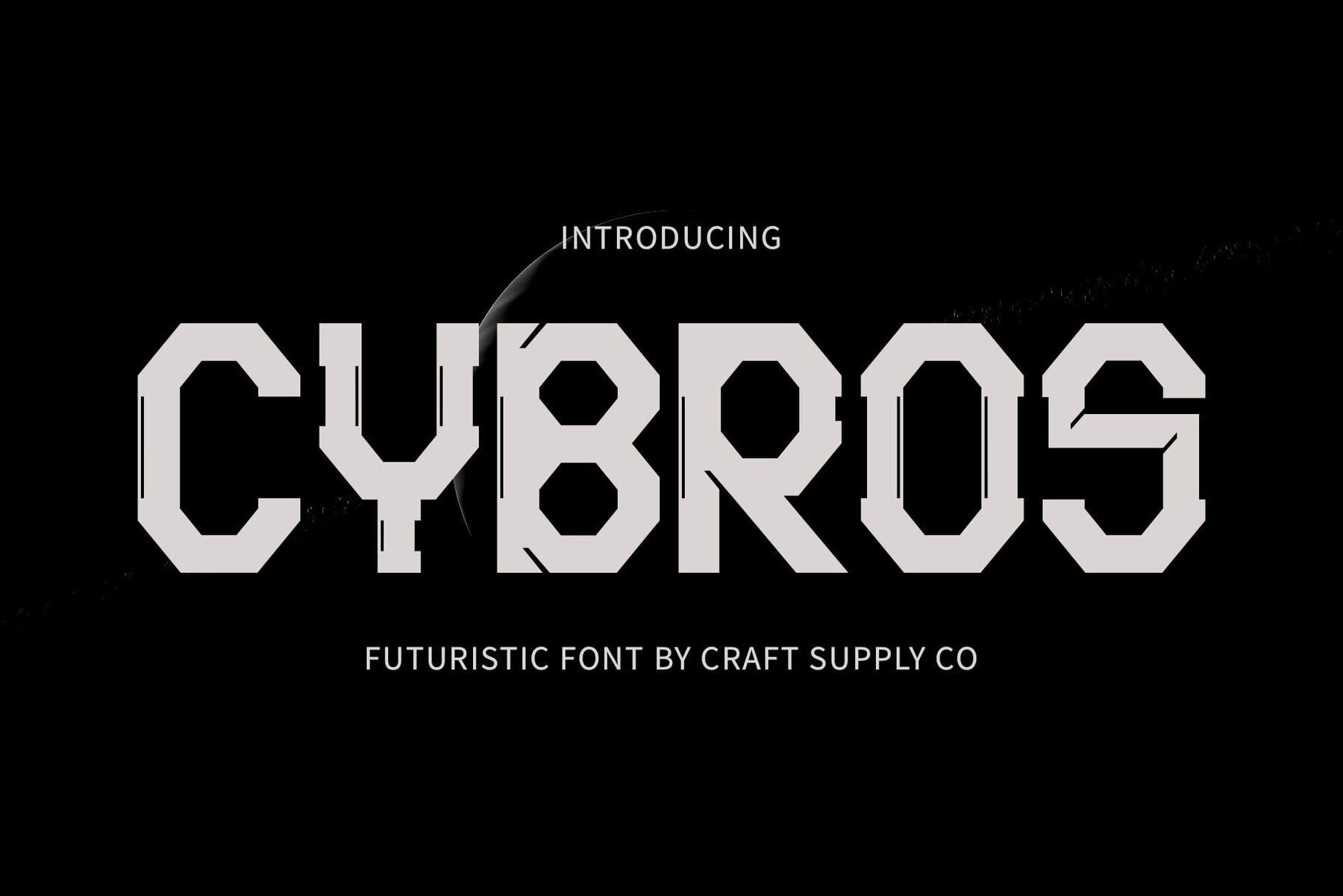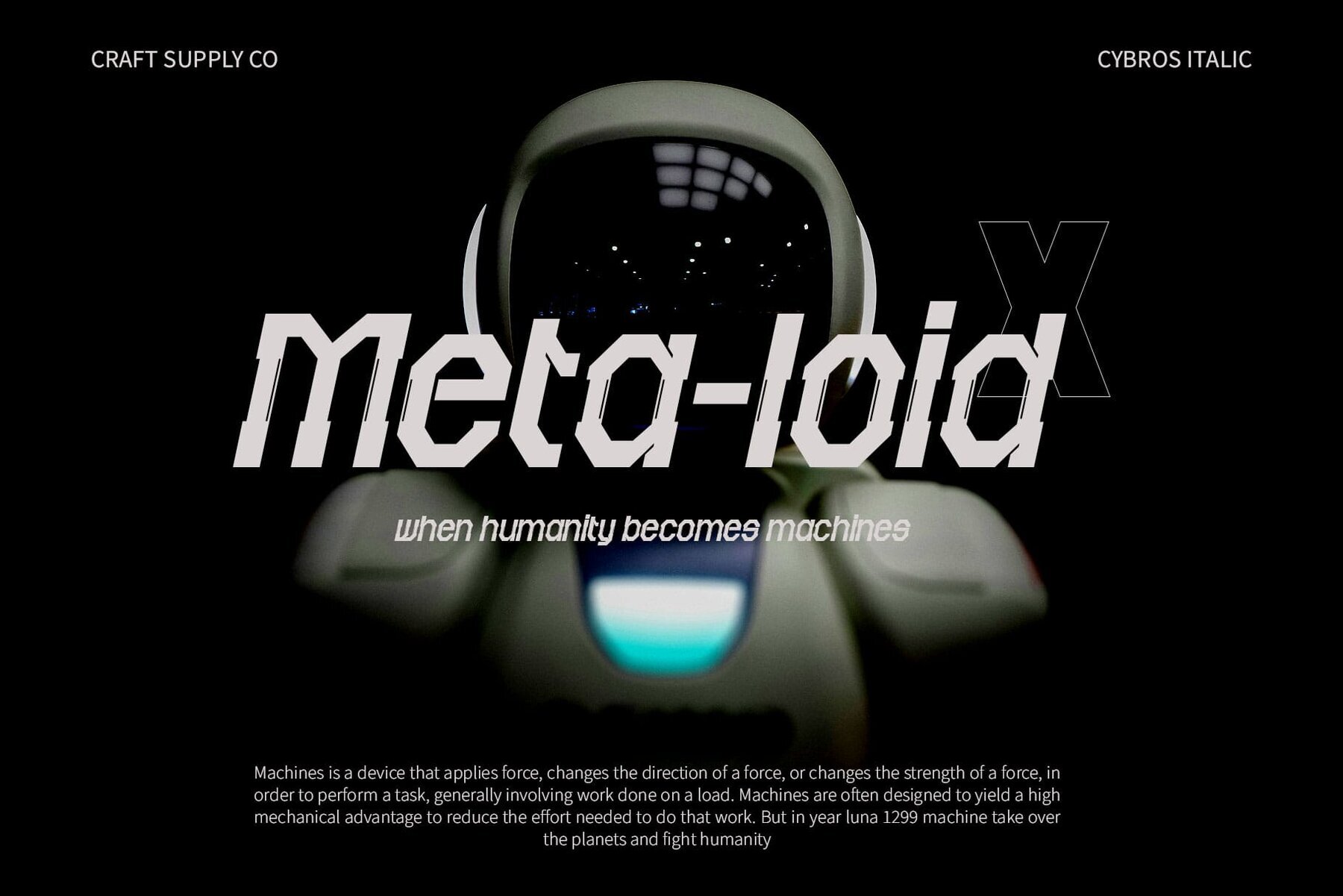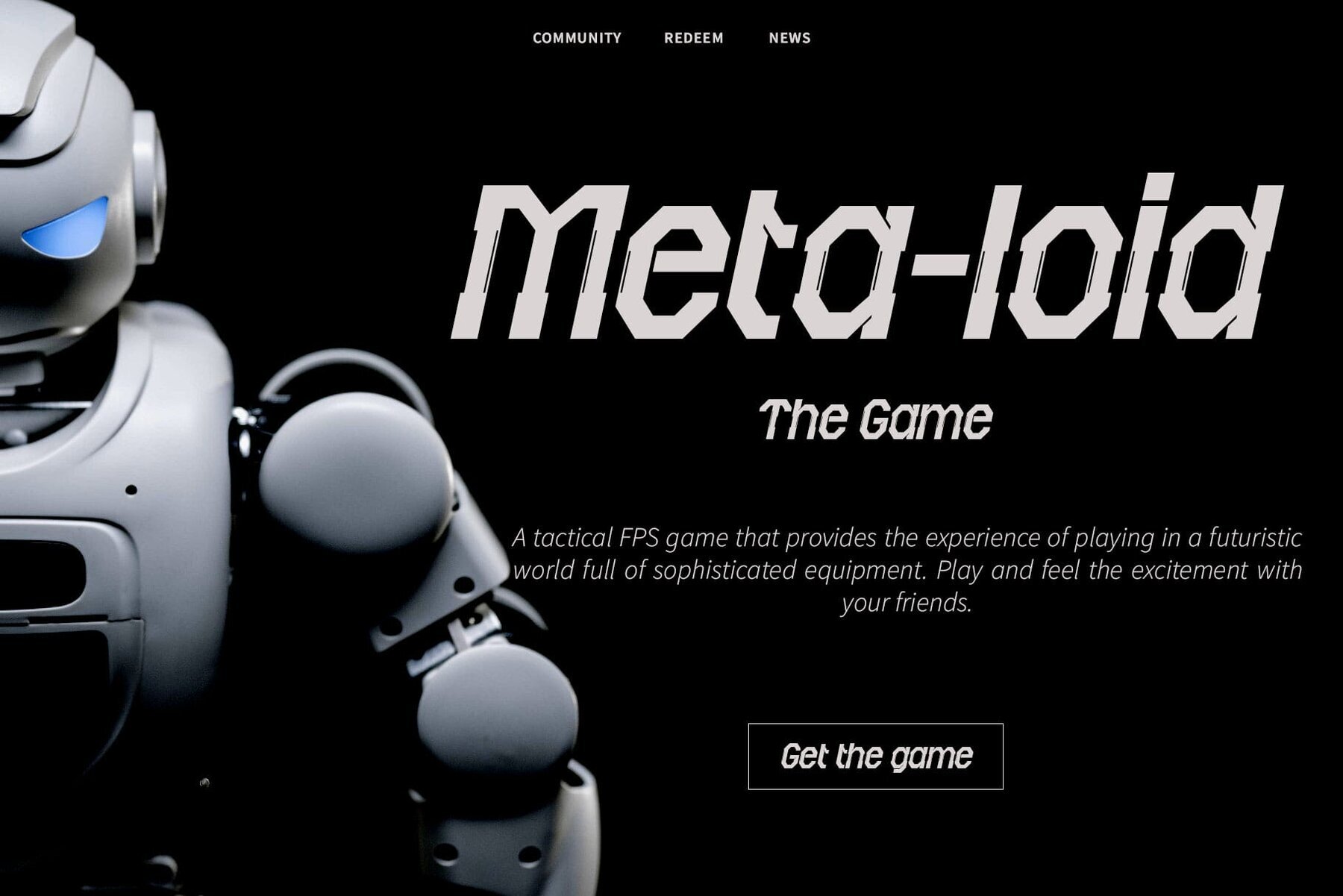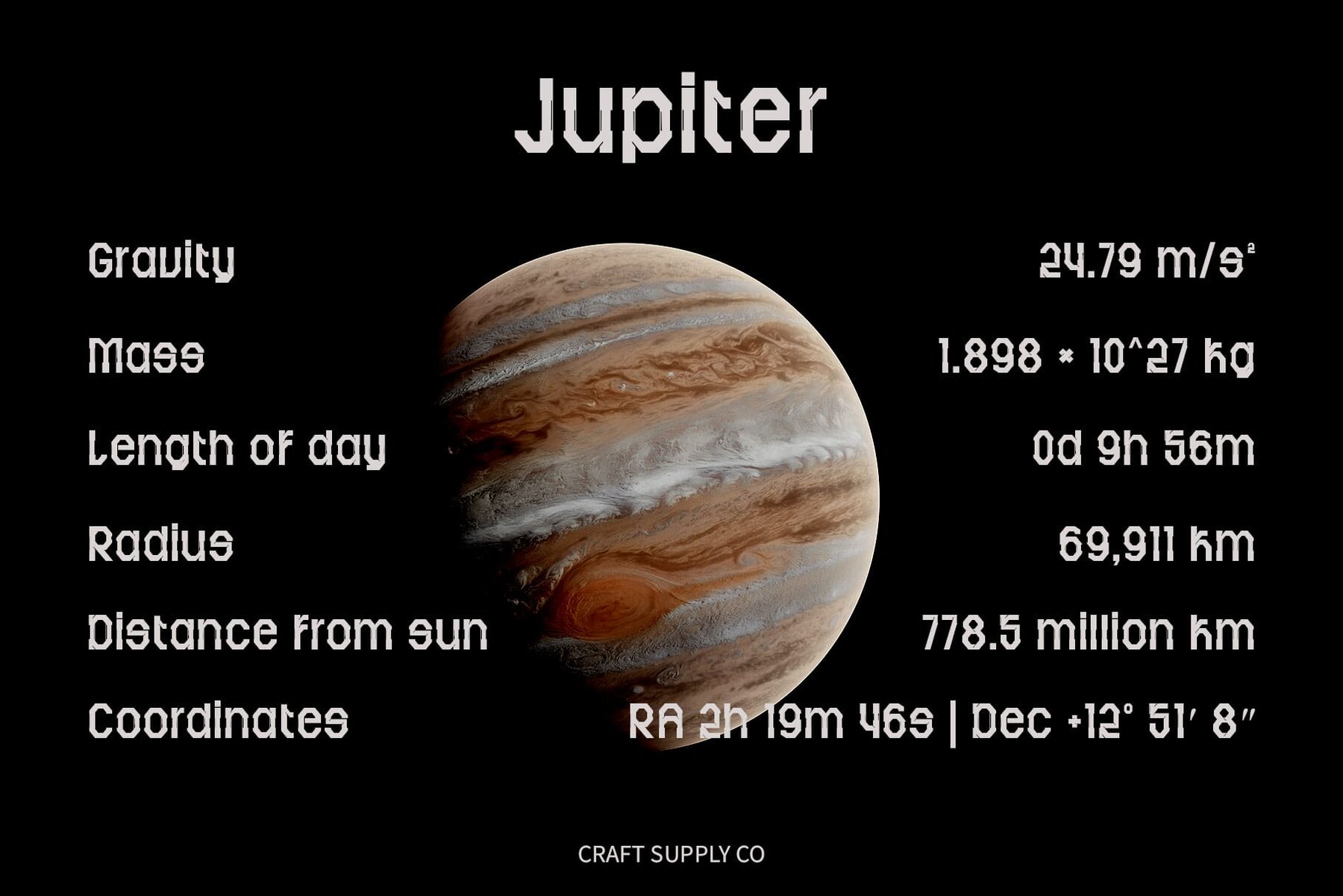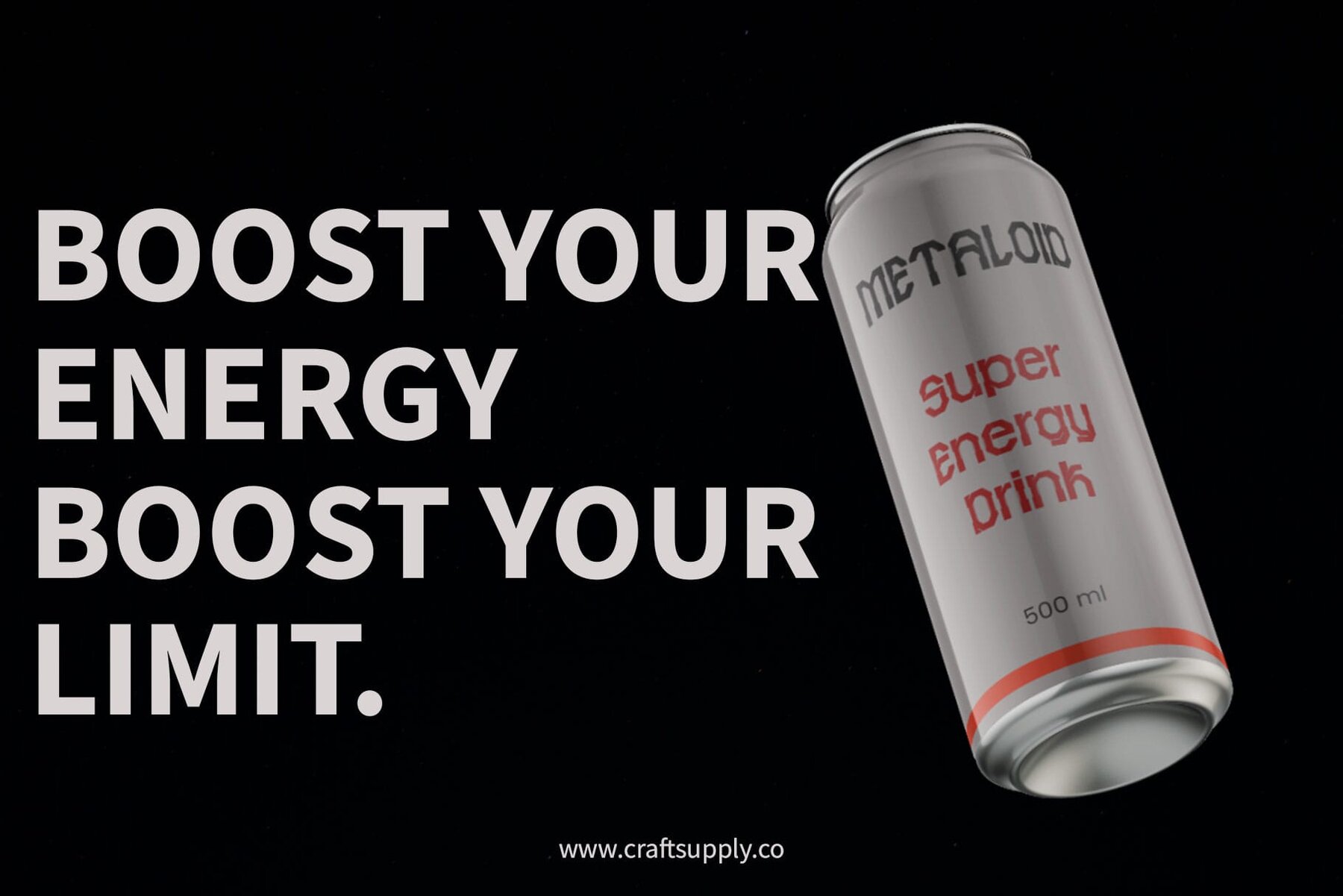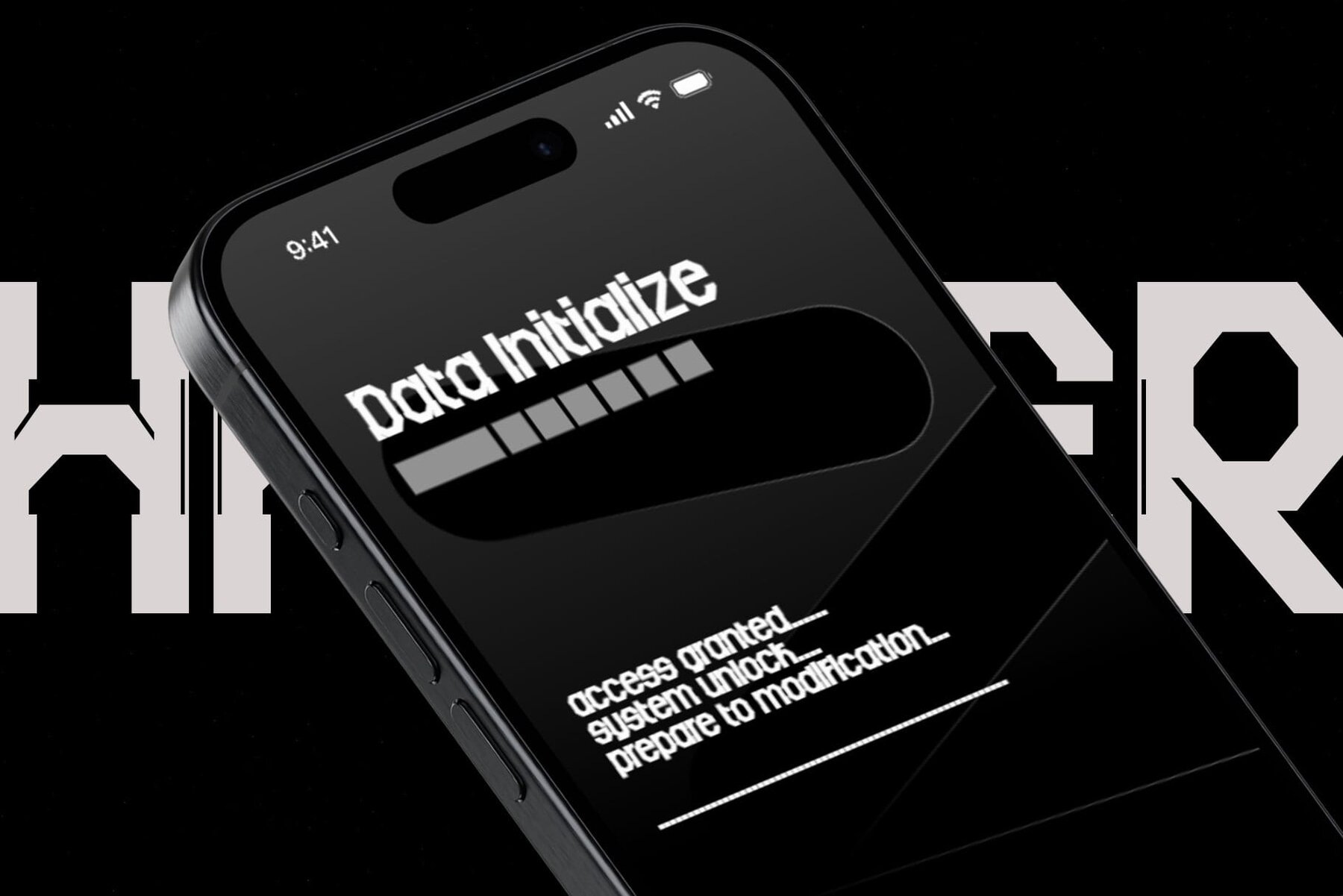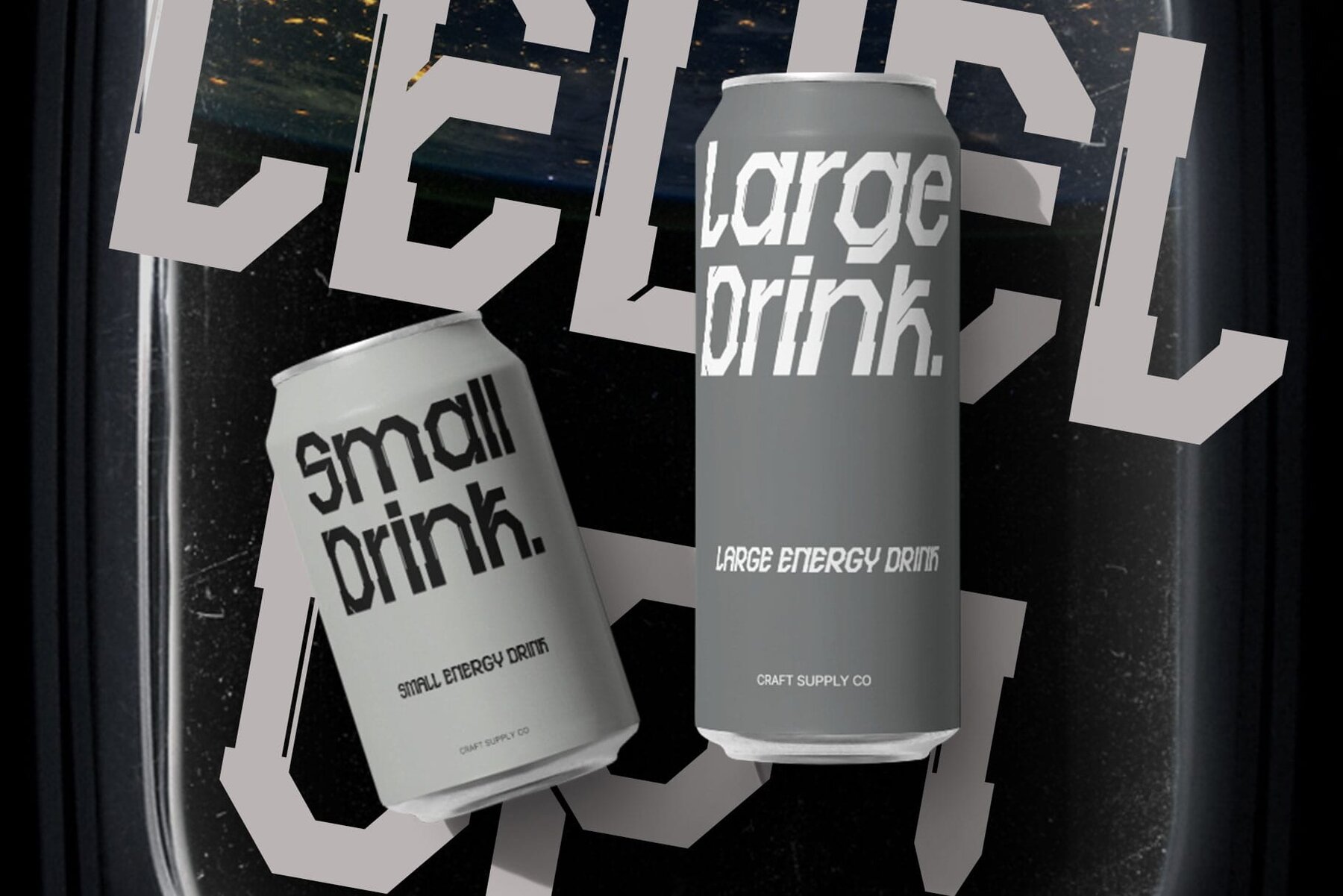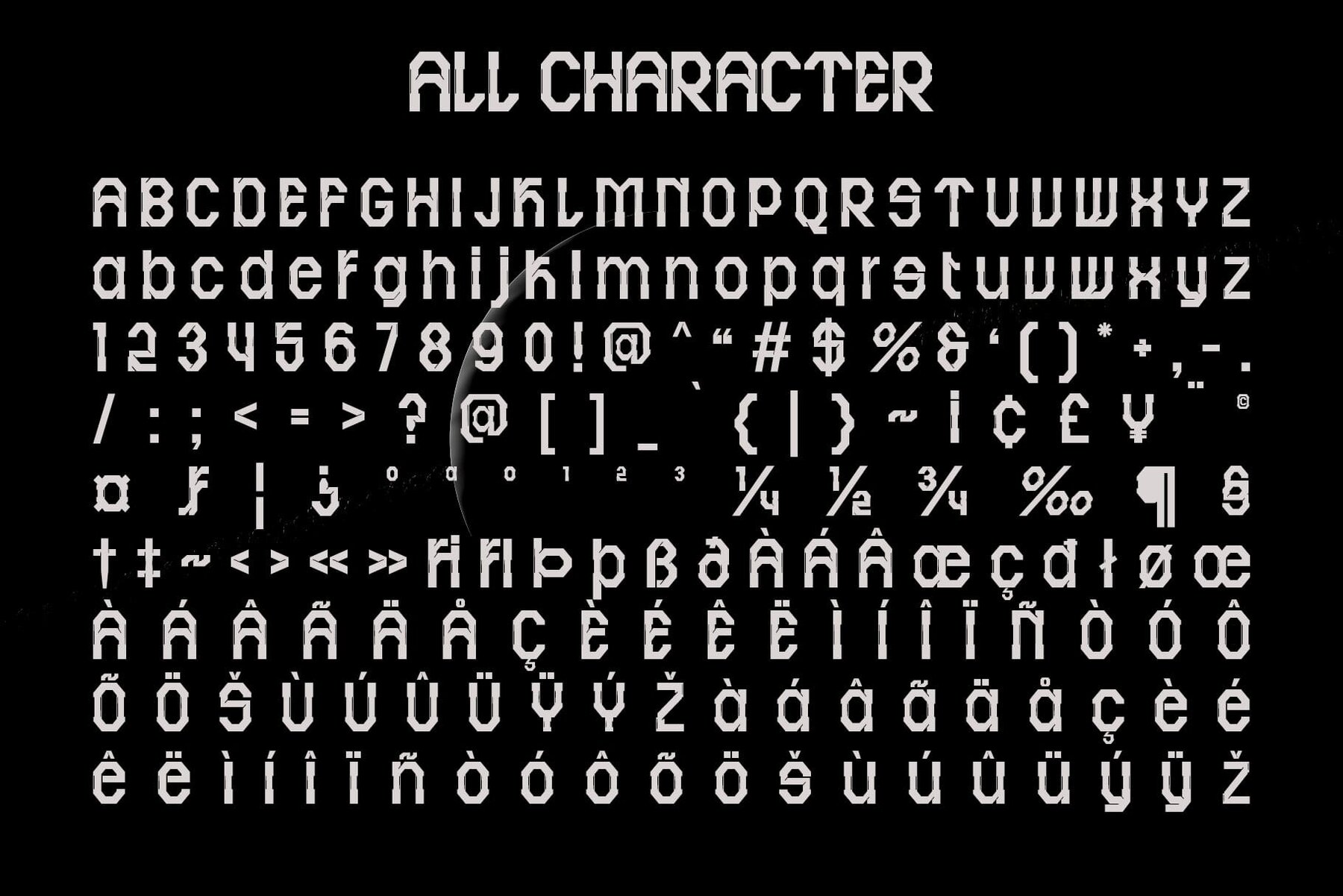
Cybros Font
Cybros by Craft Supply Co. redefines display typography with a design inspired by futuristic elements. Featuring sleek lines and geometric shapes, it captures the essence of tomorrow's technology and innovation. Cybros is a testament to forward-thinking inspiration, drawing from concepts ranging from artificial intelligence to space exploration. Its unique style exemplifies a modern approach to typography. This typeface is ideal for projects demanding a futuristic aesthetic. Whether it's for sci-fi films, tech startups, or digital interfaces, Cybros delivers a dynamic and contemporary feel. Cybros goes beyond its futuristic theme, offering versatility across various applications such as branding and editorial design. Its distinctive style captures attention and makes a memorable impact. A beacon of innovation in typography, Cybros encapsulates futurism and expands the boundaries of design. Its sleek, geometric design paves the way for future visual communication. Embrace the future of typography with Cybros. This typeface is accessible without the need for specialized software. If you have any inquiries or need assistance, please feel free to contact us. We appreciate your support in enhancing your creative projects!Cybros: Embracing the Future in Typography
Innovative Futuristic Design
Perfect for Cutting-Edge Projects
Versatile and Impactful
Shaping Tomorrow's Typography